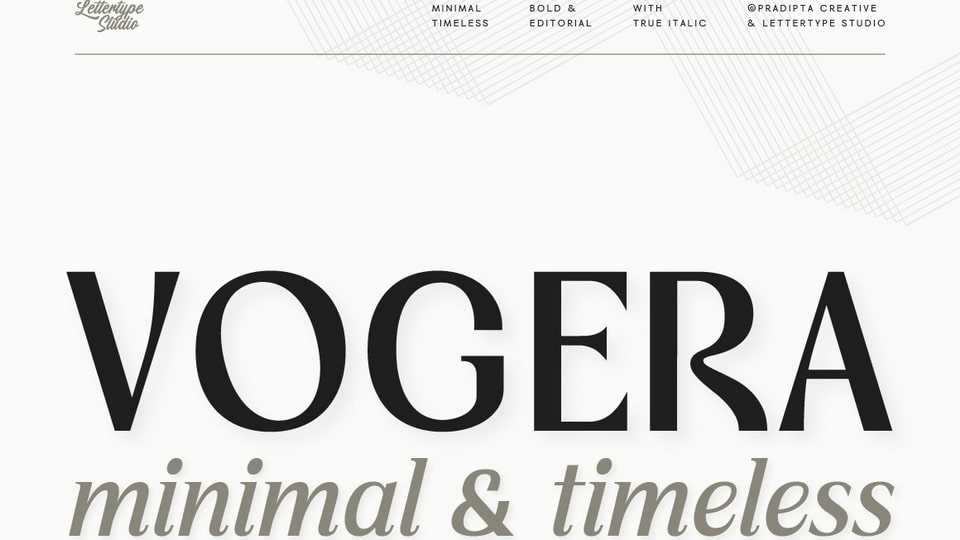
Download Vogera font, a minimalist, timeless editorial serif typeface with subtle sans serif influences, crafted for modern branding, magazines, and creative projects.
Designer: Lettertype Studio